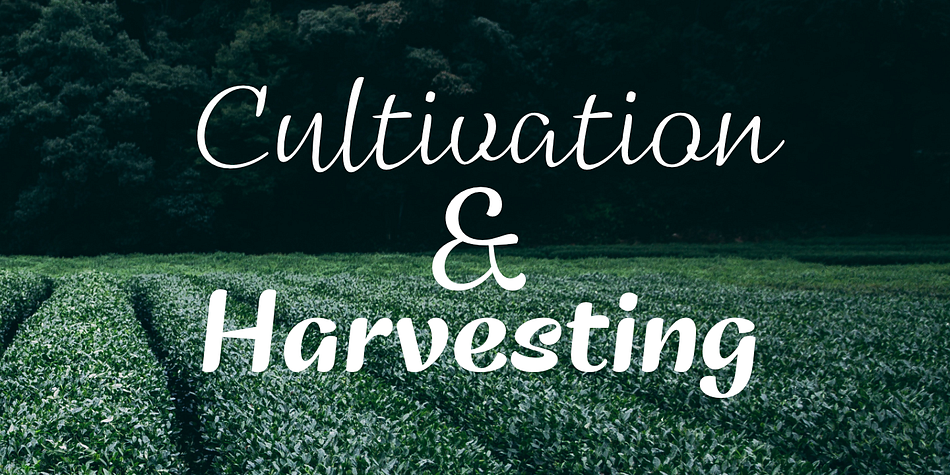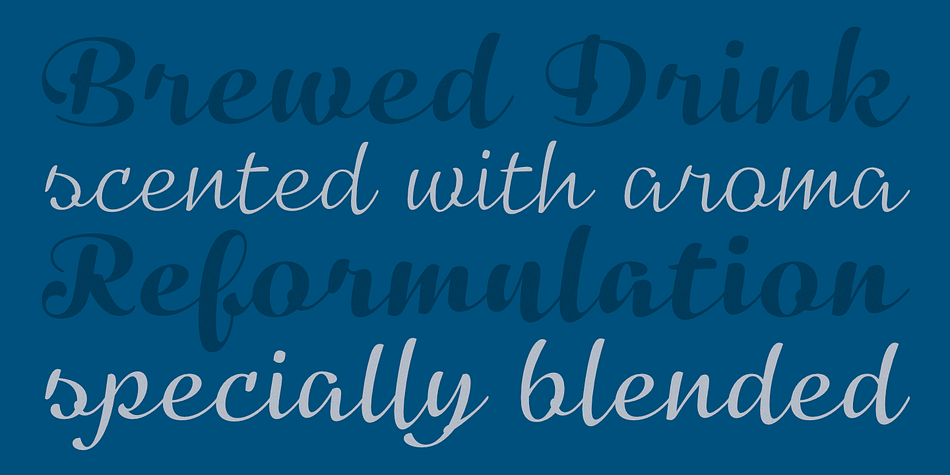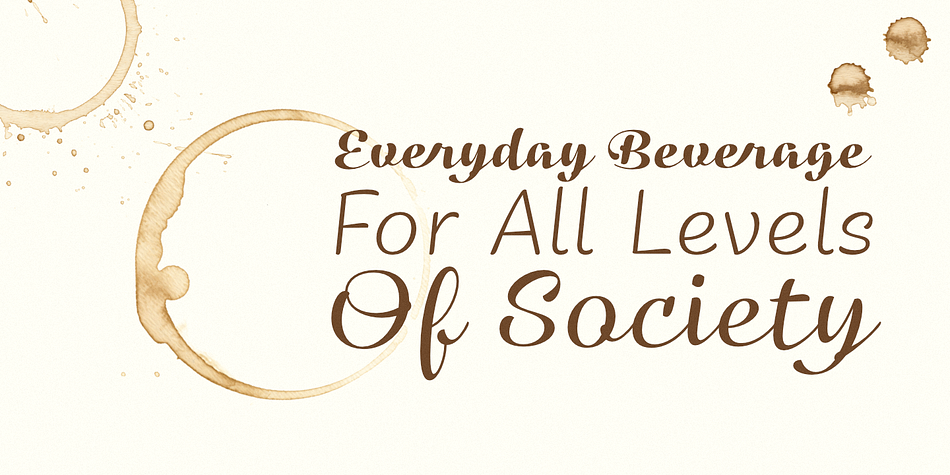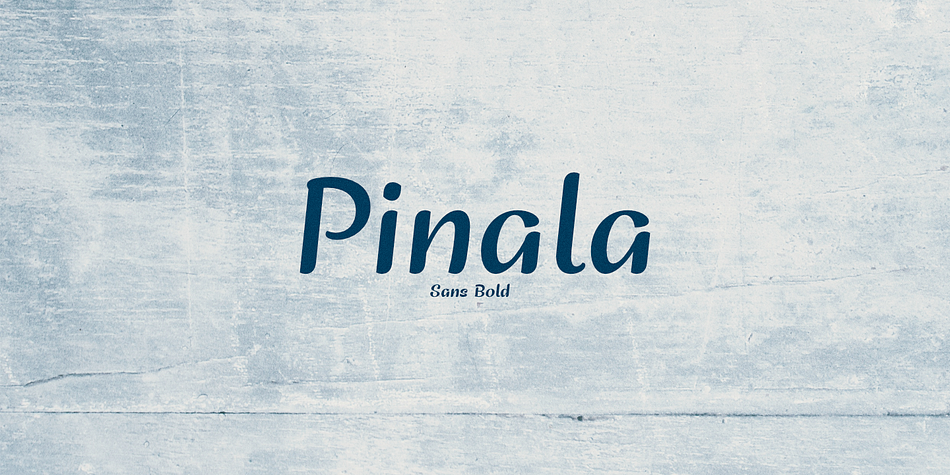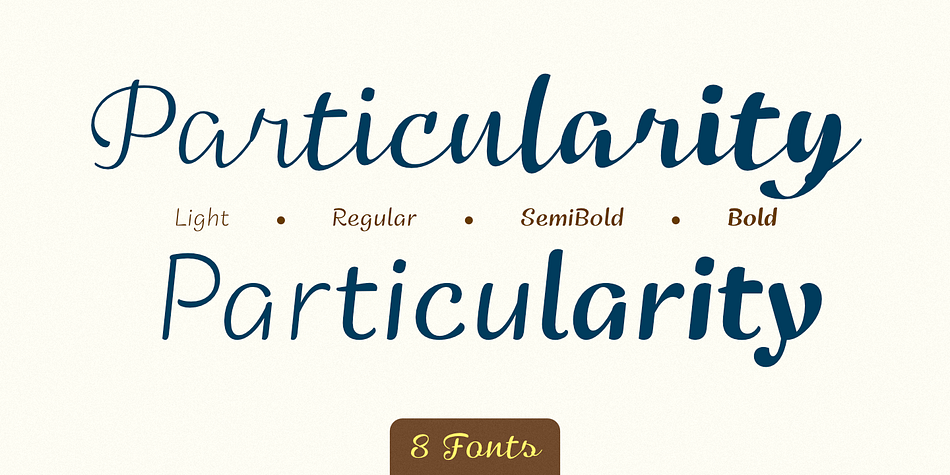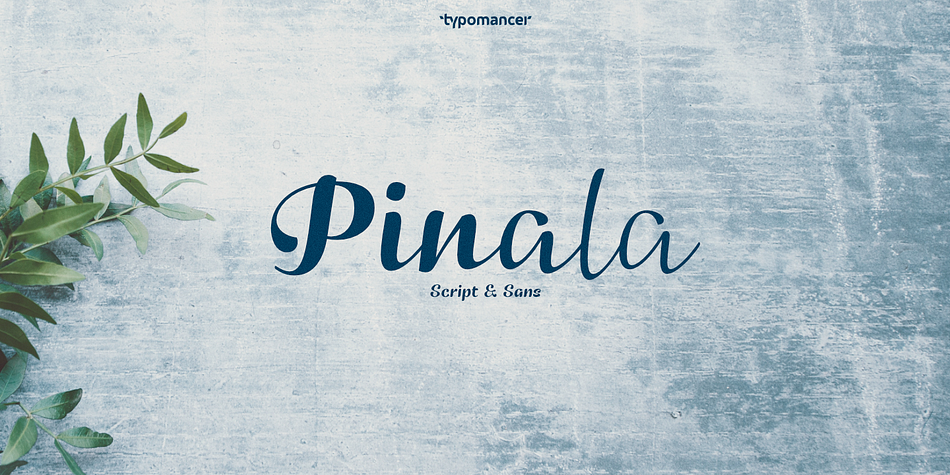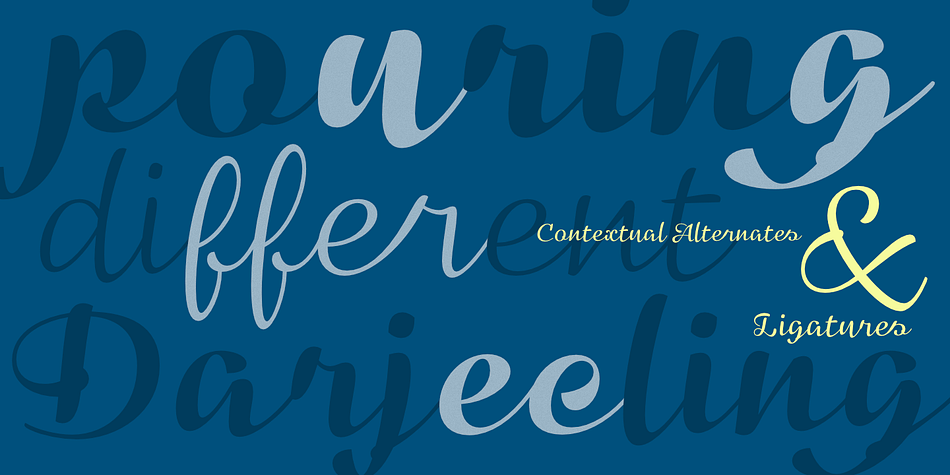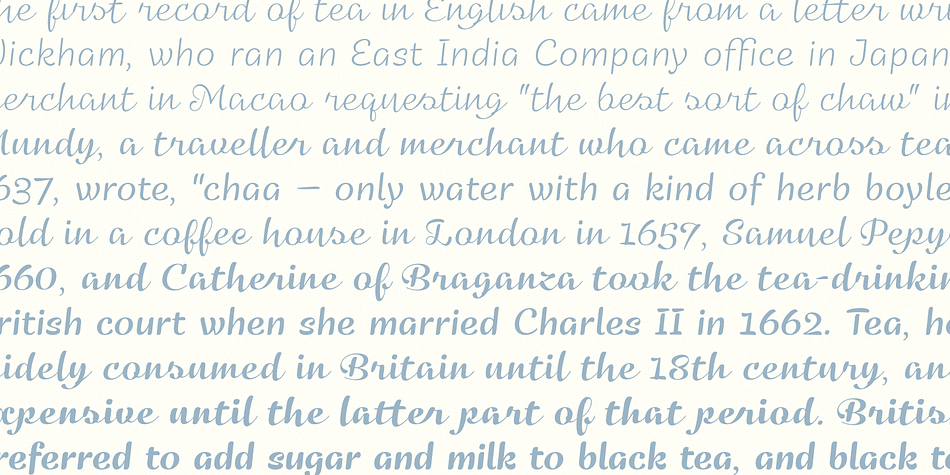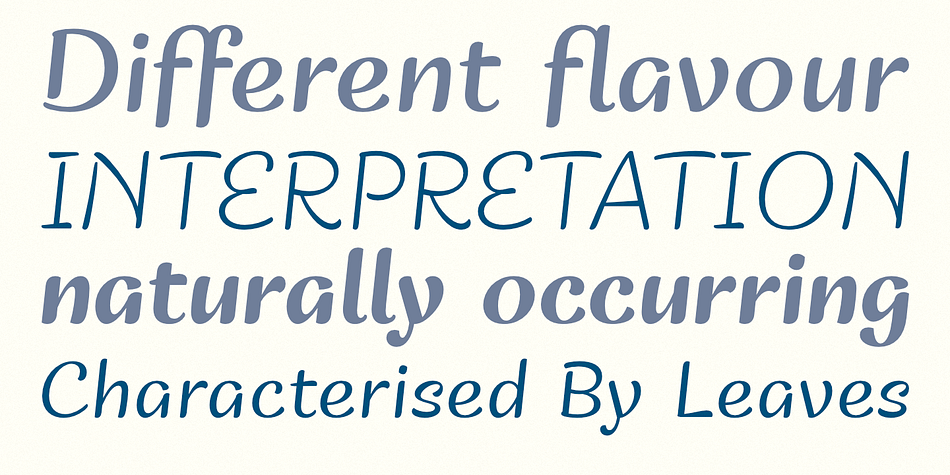
Designed by Warit Chaiyakul, Pinala is a hand drawn and script font family. This typeface has eight styles and was published by Typomancer.
‘Pinala’, a playful script & sans fonts, contains light to bold weights for various designs.
Foundry | Typomancer |
Styles | Hand Drawn, Script |
Designer | Warit Chaiyakul |